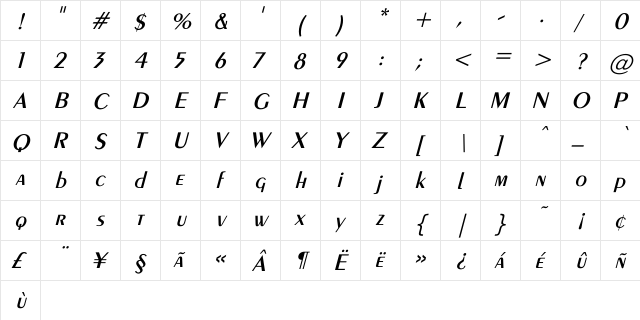
Exotic-Demi Itac Italic
Design Context for Exotic-Demi Itac Typeface
Exotic-Demi Itac offers clean, dependable letterforms without strong stylistic allegiance, making it a practical choice for designers who need flexibility. Its italic angle brings a sense of urgency and motion to the letterforms.
Pro Tip: Use Exotic-Demi Itac for emphasis, pull quotes, and subheadings where its slanted energy can add rhythm to the layout.